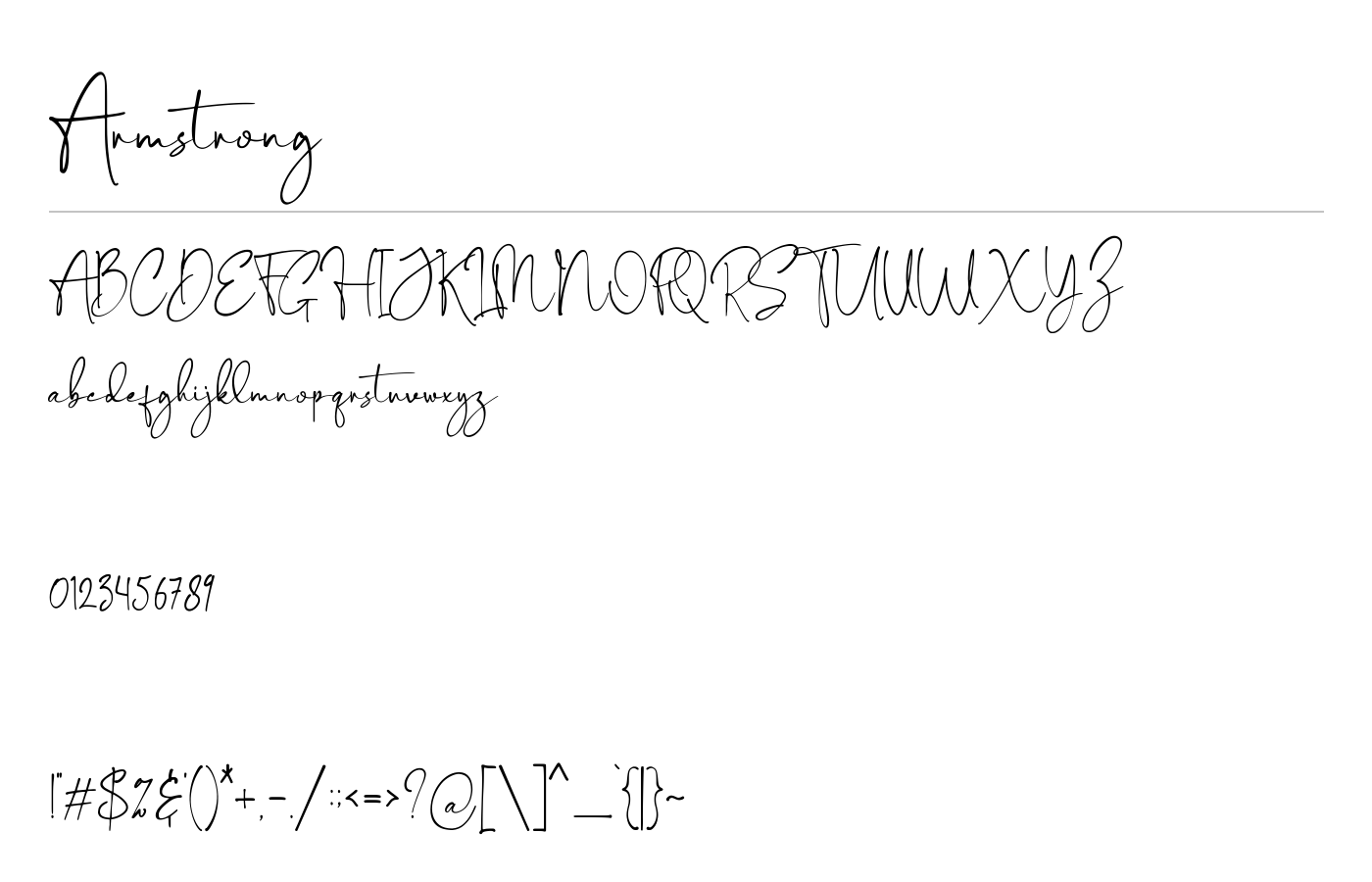
Armstrong is a delicate and elegant handwritten script font characterized by its thin, flowing strokes and airy, playful letterforms. Its organic, slightly irregular lines give it a personal and artistic feel, making it perfect for creative branding, invitations, and feminine or romantic design projects. This font works best in logos, greeting cards, and editorial headlines where a refined yet approachable style is desired.
Armstrong Font
About Armstrong Font
| Font family | Armstrong Font |
| Designer | FatoniNurman |